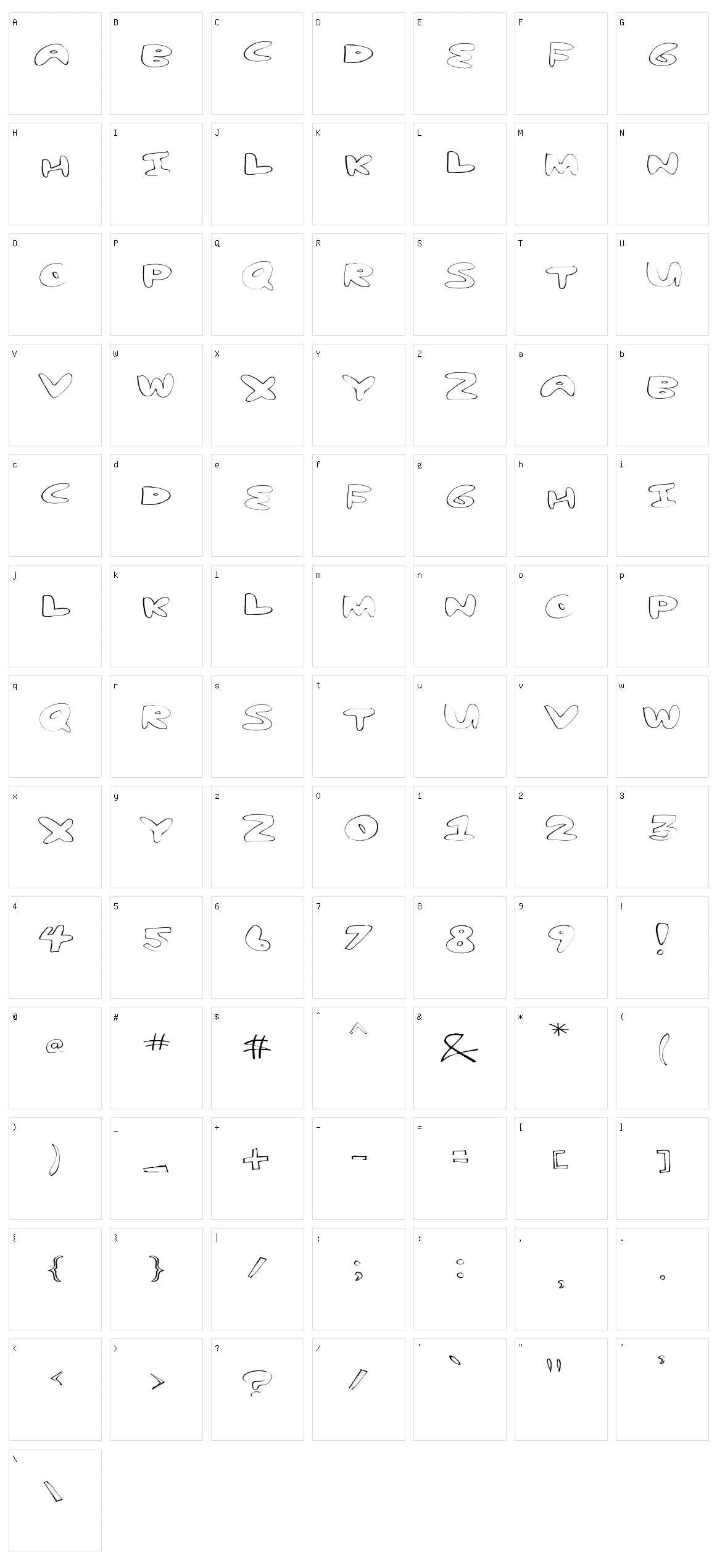
The free font Yum Nub Extended is carefully designed by Xerographer Fonts, showcasing a thoughtful balance of creativity and usability and falls under the Cartoon font style. When you download the ZIP file, it contains only 267.86 KB of font files, making it lightweight and quick to download. Please review the license details below to understand permitted usage and distribution rights. If license information is not available, we recommend using this font for personal projects only or contacting the author directly for commercial usage permissions.